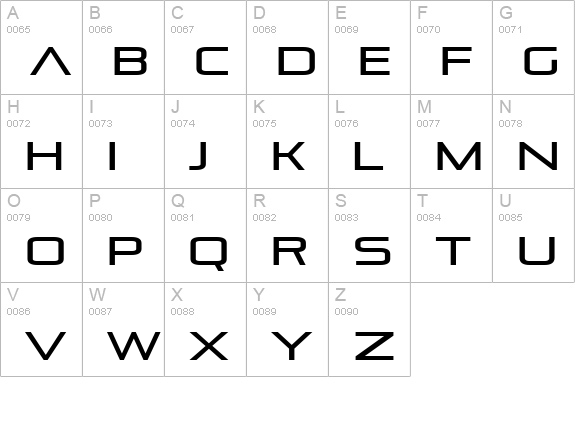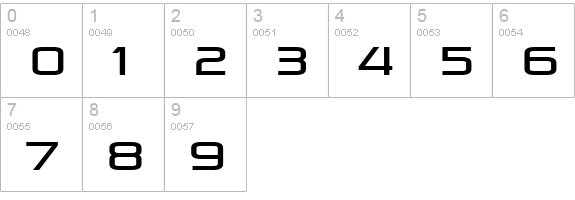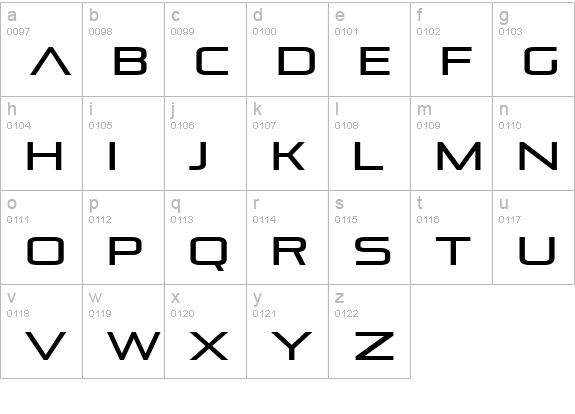
Pirulen Font Details
Pirulen font is a sleek and modern typeface that exudes sophistication and elegance. With its clean lines and sharp angles, Pirulen is perfect for adding a touch of contemporary flair to any design project. This versatile font is ideal for logos, branding, headlines, and more. The best part? Pirulen font is completely free to download at FontsMarket.com. This means you can elevate your designs without breaking the bank. Don't miss out on the opportunity to enhance your creative projects with this stylish and eye-catching typeface. Download Pirulen font today and take your designs to the next level!